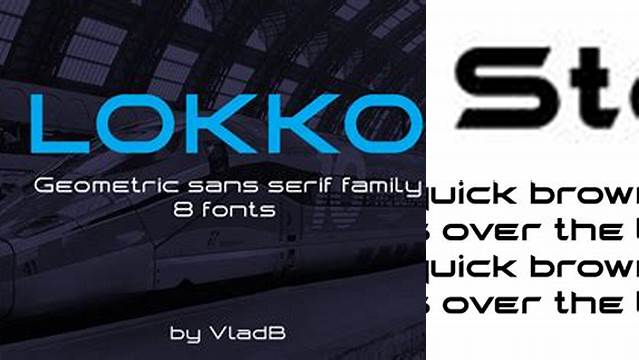
What is Lokko Cut Black Font?
Lokko Cut Black Font is a contemporary sans-serif typeface known for its bold, geometric shapes and distinctive cut-out details. This font exudes a sense of modern sophistication and is perfect for projects that require a strong visual impact. Its clean lines and sharp angles make it highly legible, while the unique cut-out elements add a touch of edginess and flair. Whether you're working on branding materials, website design, posters, or any other creative endeavor, Lokko Cut Black can help you make a statement. The font’s strong personality makes it a go-to choice for designers aiming to convey confidence and innovation. Its versatility is another key feature; while it shines in headlines and titles, it also performs well in shorter body text, providing a consistent and polished look across various applications. Designers love how Lokko Cut Black can transform a simple design into something visually striking, adding a layer of depth and modernity that few other fonts can match. Its geometric structure ensures clarity, making it easily readable even at smaller sizes, while the cut-out details add a distinctive touch that sets it apart from more generic sans-serif options. This balance of functionality and unique aesthetic appeal makes Lokko Cut Black a valuable asset in any designer's toolkit. Furthermore, the font's ability to adapt to different design contexts is a significant advantage. It pairs seamlessly with both classic and contemporary styles, allowing for creative flexibility and experimentation. For instance, it can be used alongside a serif font to create a dynamic contrast, or it can stand alone in a minimalist design to emphasize its bold character. The thoughtful design of Lokko Cut Black ensures that it enhances the overall visual appeal of any project, making it a reliable choice for achieving a professional and impactful result.
Why Choose Lokko Cut Black?
So, why should you choose Lokko Cut Black over other fonts? Well, there are several compelling reasons. First off, its bold and modern aesthetic immediately grabs attention. If you're aiming for a design that stands out, this font is your secret weapon. The distinctive cut-out details add a unique touch, setting it apart from more generic sans-serif fonts. This uniqueness can help your brand or project leave a lasting impression on your audience. Think about how important first impressions are, especially in a visually driven world. A font like Lokko Cut Black ensures that your message is not only heard but also seen and remembered. Beyond aesthetics, Lokko Cut Black is also incredibly versatile. It works beautifully in a variety of applications, from headlines and logos to posters and website design. This adaptability means you can use it across different platforms and mediums, maintaining a consistent brand identity. Whether you're designing a sleek website, a bold marketing campaign, or a stylish business card, this font can handle it all. This versatility saves you time and effort, as you don’t have to hunt for different fonts for different projects. Moreover, the legibility of Lokko Cut Black is another significant advantage. Despite its unique design elements, it remains highly readable, even at smaller sizes. This is crucial for ensuring that your message is clear and accessible to everyone. After all, what good is a beautiful font if people can’t read it? The designers behind Lokko Cut Black have struck a perfect balance between style and functionality, making it a practical choice for a wide range of projects. In addition to its visual appeal and versatility, Lokko Cut Black also brings a sense of sophistication to any design. Its clean lines and geometric shapes convey a feeling of professionalism and modernity, which can be particularly beneficial for brands looking to project a forward-thinking image. The font’s strong personality makes it ideal for conveying confidence and innovation, helping your message resonate with your target audience. By choosing Lokko Cut Black, you’re not just selecting a font; you’re choosing a visual identity that speaks volumes about your brand or project.
Key Features of Lokko Cut Black
Let's dive into the key features that make Lokko Cut Black such a standout font. Its most distinctive feature is undoubtedly the unique cut-out design. These geometric cut-outs add a touch of modernity and edginess, making it instantly recognizable. This feature isn’t just about aesthetics; it also contributes to the font’s overall character and visual impact. The cut-outs create a sense of lightness and openness, preventing the bold typeface from feeling too heavy or overwhelming. This intricate detail adds a layer of sophistication, making it an ideal choice for designs that aim to be both bold and refined. Another key feature is its bold weight. The thick strokes command attention, making it perfect for headlines, titles, and logos. A bold font like Lokko Cut Black ensures that your message is front and center, capturing the viewer's eye immediately. This is particularly important in today's visually saturated world, where you have only a few seconds to make an impression. The bold weight also enhances legibility, especially in digital formats, where screen resolution can sometimes affect how fonts appear. The strong, clear letterforms of Lokko Cut Black ensure that your text remains readable, regardless of the medium. Furthermore, the geometric construction of Lokko Cut Black contributes to its clean and modern appearance. The font is built on a foundation of simple geometric shapes, giving it a sense of order and precision. This geometric structure not only enhances its visual appeal but also makes it highly versatile. It pairs well with other geometric fonts, as well as more organic typefaces, allowing for a wide range of design combinations. The clean lines and precise angles of Lokko Cut Black convey a sense of professionalism and sophistication, making it suitable for corporate branding, editorial design, and a variety of other applications. Finally, the legibility of Lokko Cut Black is a crucial feature. Despite its bold weight and unique cut-out details, the font remains highly readable, even at smaller sizes. This is essential for ensuring that your message is accessible to a wide audience. The careful balance between style and functionality makes Lokko Cut Black a practical choice for both print and digital projects. Its clear and distinct letterforms ensure that your text is easy to read, regardless of the context.
How to Use Lokko Cut Black in Your Designs
Now that you're familiar with its features, let’s talk about how to effectively use Lokko Cut Black in your designs. One of the best ways to leverage its bold personality is in headlines and titles. The font’s strong presence instantly grabs attention, making it perfect for creating impactful headers that draw the reader in. Imagine using it for a website header, a poster title, or a magazine headline – it’s guaranteed to make a statement. When using it for headlines, consider pairing it with a simpler body font to maintain balance and readability. A classic serif or a clean sans-serif can complement Lokko Cut Black beautifully, creating a visual hierarchy that guides the reader through your content. Another great application for Lokko Cut Black is in logo design. Its unique cut-out details and geometric shapes make it an excellent choice for creating a memorable and distinctive brand identity. A logo designed with Lokko Cut Black can convey a sense of modernity, innovation, and sophistication. The font’s bold weight ensures that your logo stands out, even in a crowded marketplace. When using it for logos, think about how the font’s individual characters can be incorporated into your brand’s visual language. The cut-outs, for example, could be echoed in other design elements, creating a cohesive and recognizable brand identity. In branding materials, such as business cards and brochures, Lokko Cut Black can add a touch of elegance and professionalism. Its clean lines and bold presence convey a sense of confidence and reliability, which can be crucial for building trust with your audience. When using it in branding materials, consider using it sparingly, perhaps for headings and key information, to avoid overwhelming the design. Pairing it with a lighter, more neutral font for body text can create a balanced and visually appealing layout. For website design, Lokko Cut Black can be used to create a modern and engaging user experience. Its bold weight and unique design make it perfect for headers, navigation menus, and call-to-action buttons. However, it’s important to use it judiciously, as too much bold text can strain the reader’s eyes. Consider using it in combination with whitespace and other visual elements to create a clean and uncluttered design. Finally, in poster and flyer design, Lokko Cut Black is an excellent choice for creating eye-catching visuals. Its strong presence and unique cut-out details ensure that your message gets noticed. Use it for the main title or headline to draw attention to your event or product. When using it in posters and flyers, experiment with different colors and backgrounds to maximize its visual impact. The font’s versatility allows it to work well in a variety of design styles, from minimalist to more elaborate compositions.
Alternatives to Lokko Cut Black